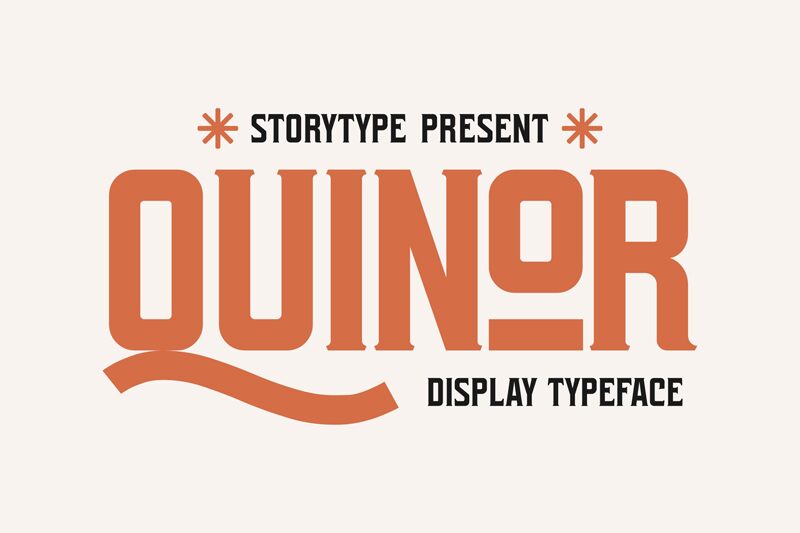
Quinor, a retro serif font designed by Storytype Studio, exudes timeless elegance with its condensed width. With its distinct vintage vibe and sleek lines, Quinor is perfect for projects that aim to capture the nostalgia of the past while maintaining a modern edge.
Use this font to create eye-catching logos, striking headlines, or captivating posters. Its condensed style makes it ideal for designing magazine spreads or editorial layouts where space is at a premium. Let Quinor transport your audience to an era of classic sophistication and bold creativity.